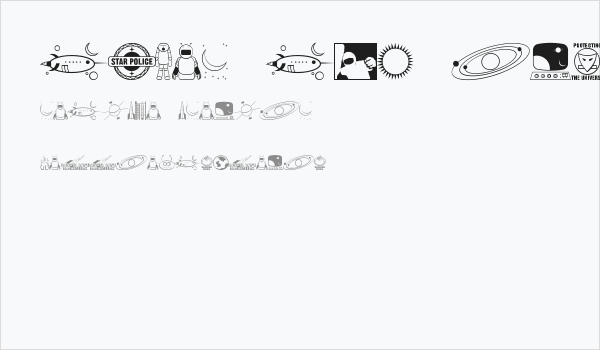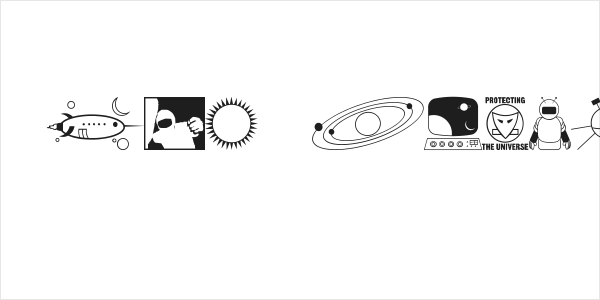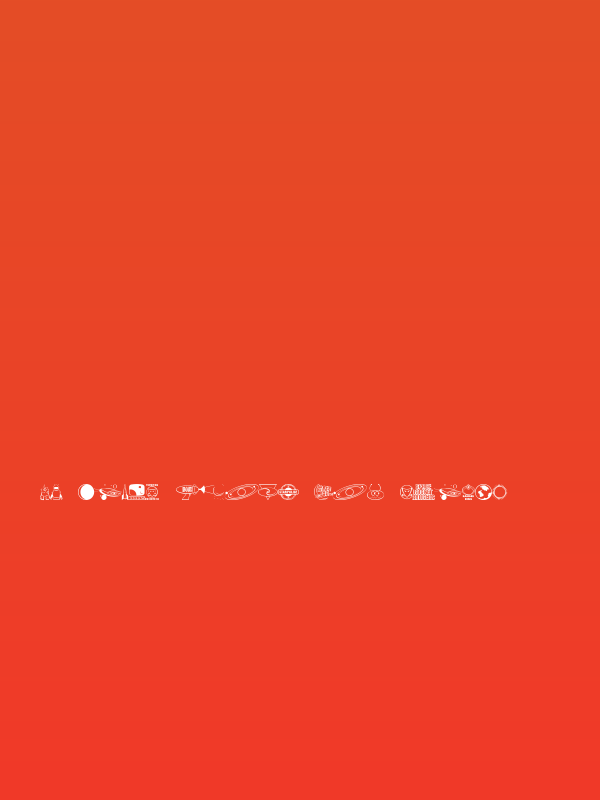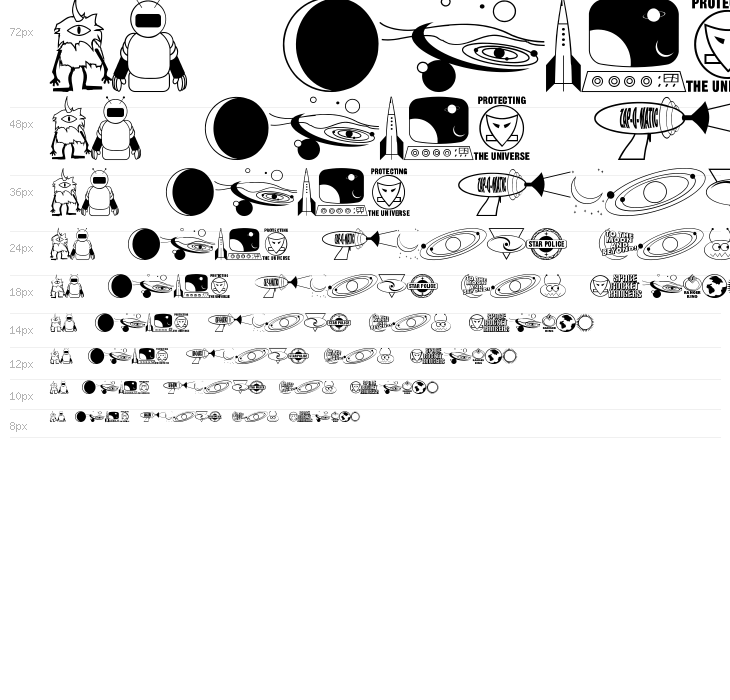
Ranger Ray's Rocketeers JL Font
Ranger Ray's Rocketeers JL Description
This is not a traditional font but a collection of space-themed icons and illustrations. It features various retro-futuristic designs, including rockets, planets, and space explorers. The style is playful and reminiscent of mid-20th-century science fiction. The elements are bold and graphic, making them suitable for decorative purposes rather than text-based applications.
Overall StyleVintage
Use CaseDecorative elements, Illustrations
Proposed ProjectsIdeal for creating themed posters, party invitations, or educational materials about space. It could also be used in graphic novels or comics with a sci-fi theme.